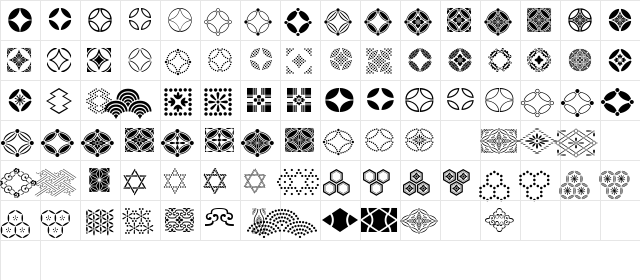
Seven Treasures Ornmnt ITC Regular Font Preview
Seven Treasures Ornmnt ITC Regular
Seven Treasures Ornmnt ITC Regular Font Details
| Foundry | International Typeface Corporation |
| Designer | Akira Kobayashi |
Design Context for Seven Treasures Ornmnt ITC Typeface
Seven Treasures Ornmnt ITC is a composed and adaptable typeface that performs quietly and consistently across a wide range of design contexts.